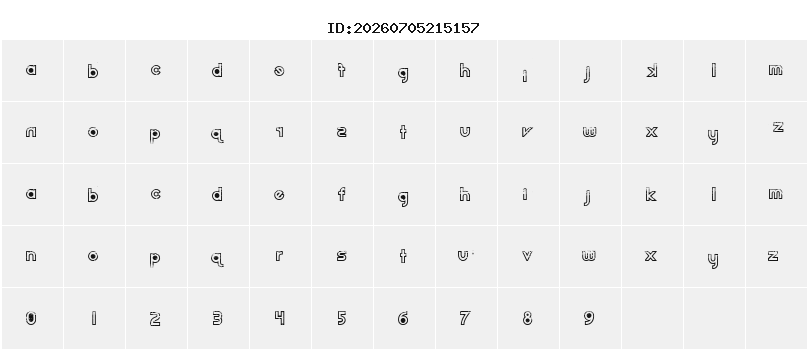
Dirt2 Echo Preview
• Font Name: Dirt2 Echo
• Full Font Name: Dirt2 Echo
About Dirt2 Echo.ttf
Dirt2 Echo.ttf is a modern, elegant sans-serif font designed for ultimate readability and visual harmony. Perfect for branding, headlines, web design, and print materials.